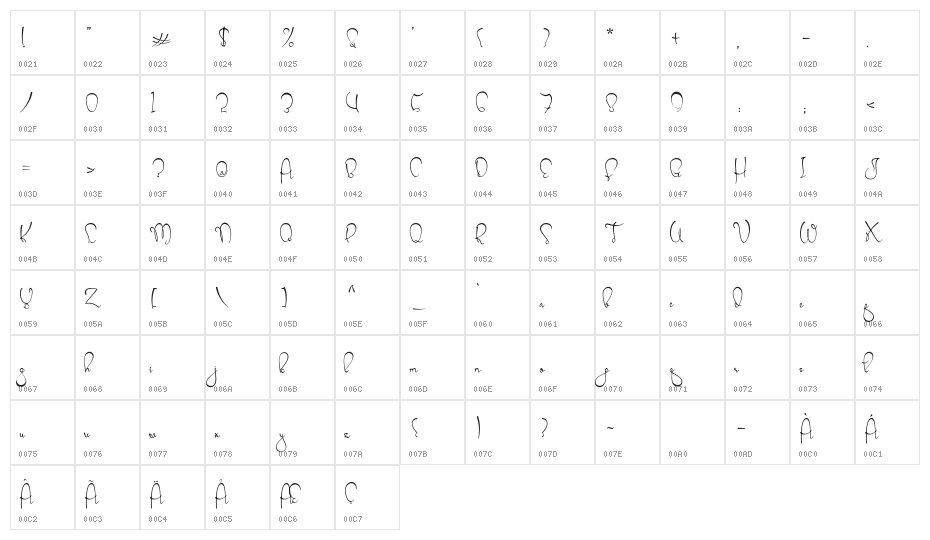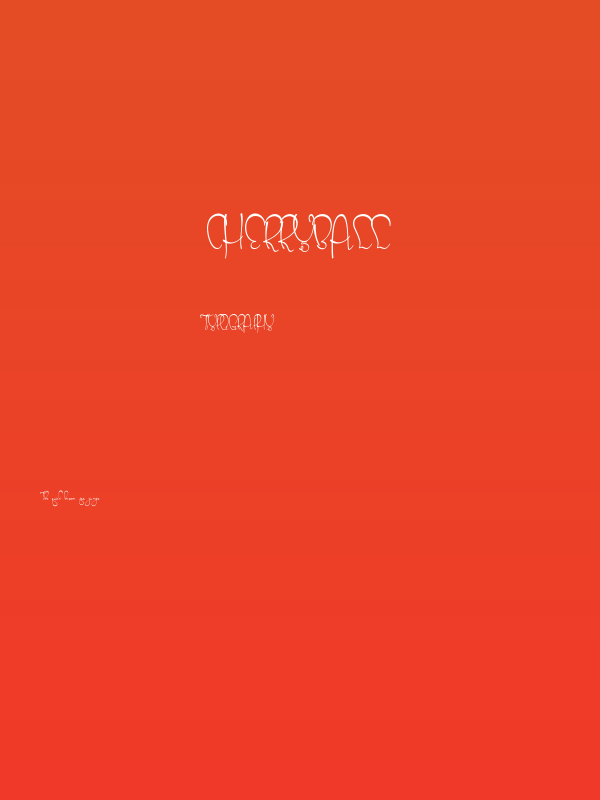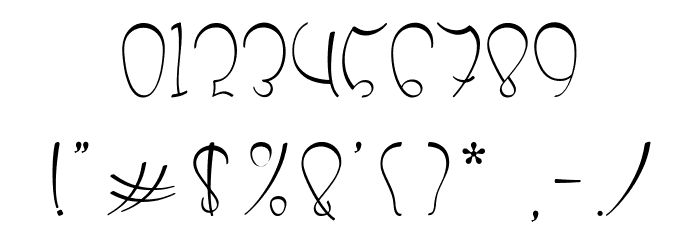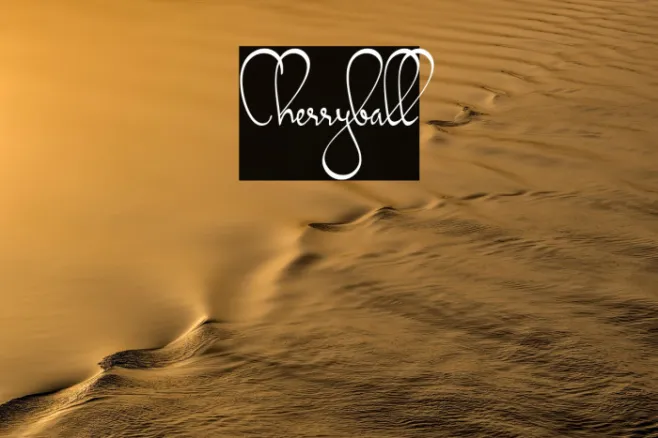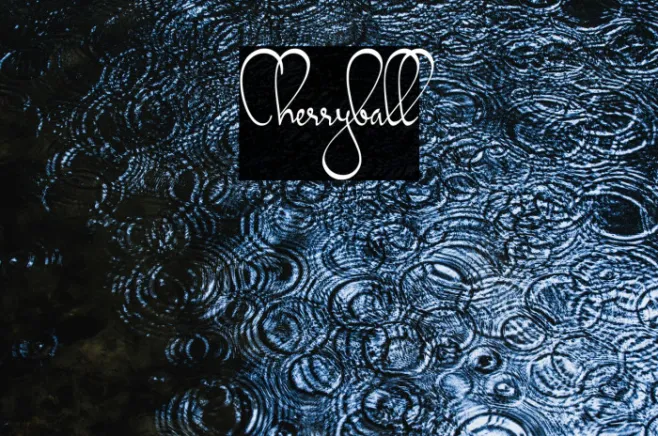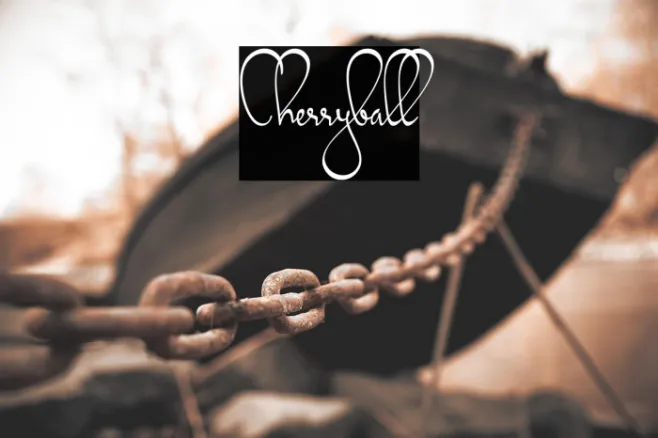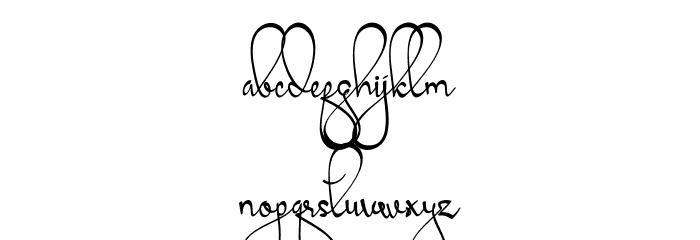
Cherryball Font
Cherryball Description
This font features an elegant and whimsical design, characterized by its flowing and interconnected letterforms. The uppercase letters exhibit a unique blend of curves and loops, creating a sense of movement and fluidity. The lowercase letters maintain this fluidity with a slightly more compact form, while still retaining the intricate detailing. Numbers and special characters follow the same stylistic approach, ensuring a cohesive look across all elements. The overall appearance is both artistic and sophisticated, making it suitable for creative and decorative applications.
| Proposed Projects | Ideal for wedding invitations, artistic branding, greeting cards, and decorative posters. |